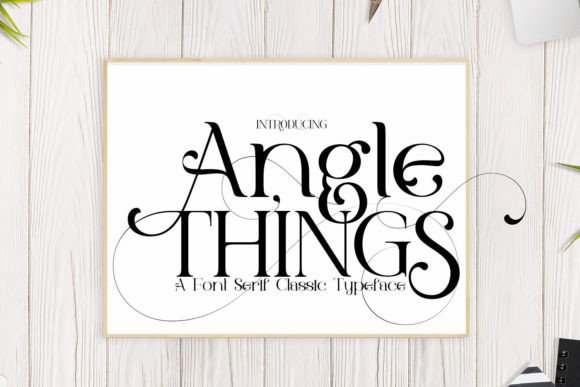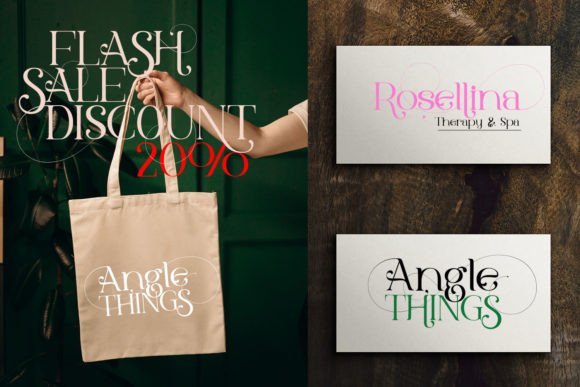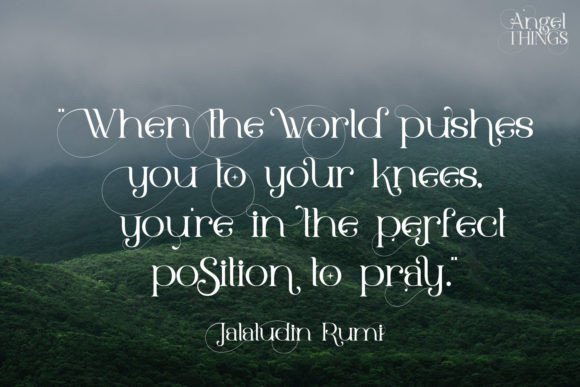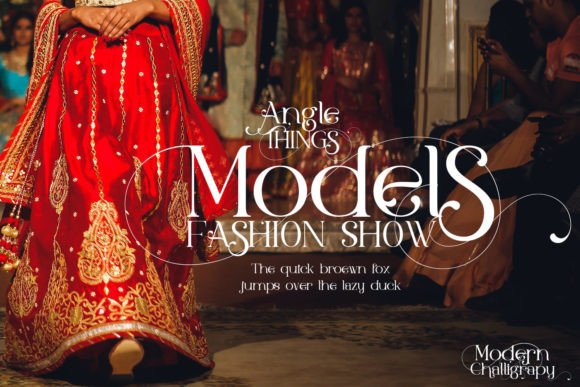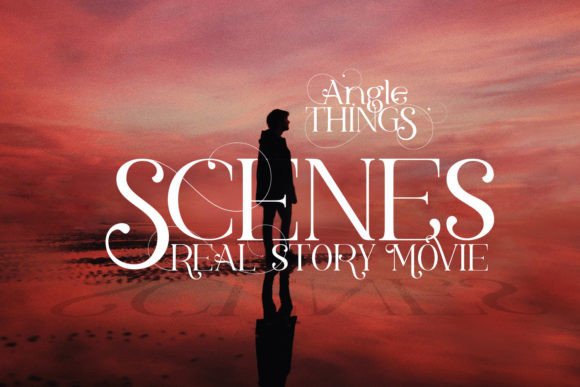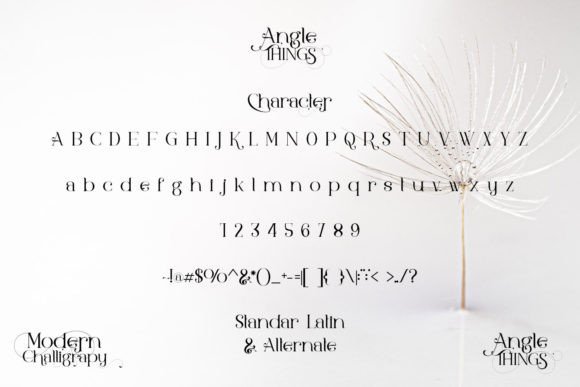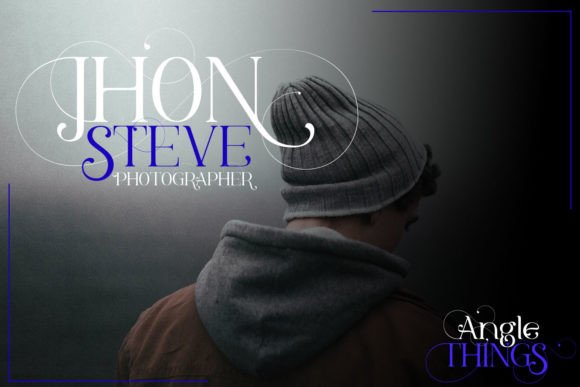
Angle Things Font
Angle Things this is a very beautiful and elegant serif font suitable for professional projects. It works great in titles movies, magazines, books, invitation prints, and much more.